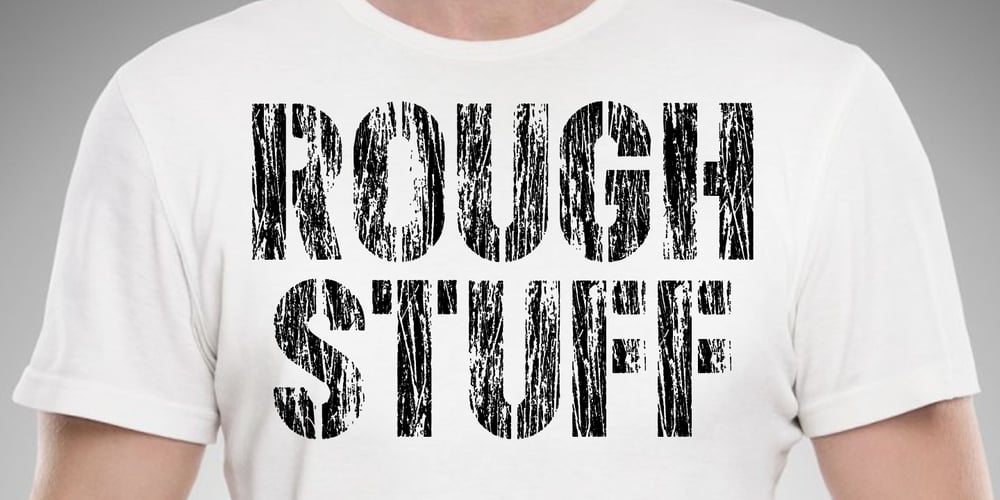
Rough Stuff
Rough Stuff font
Rough Stuff Font Family was designed by Keith Tricker and published by Studio K. Rough Stuff contains 2 styles and family package options. Cool and contemporary or hot and happening? Street smart or down and dirty? You decide. Either way Rough Stuff will add a dash of style and the stamp of authenticity to your graphic projects. Perfect for tee shirt slogans or gig posters. Suitably distressed ‘warning’ symbols are also supplied. See also Export Drive.